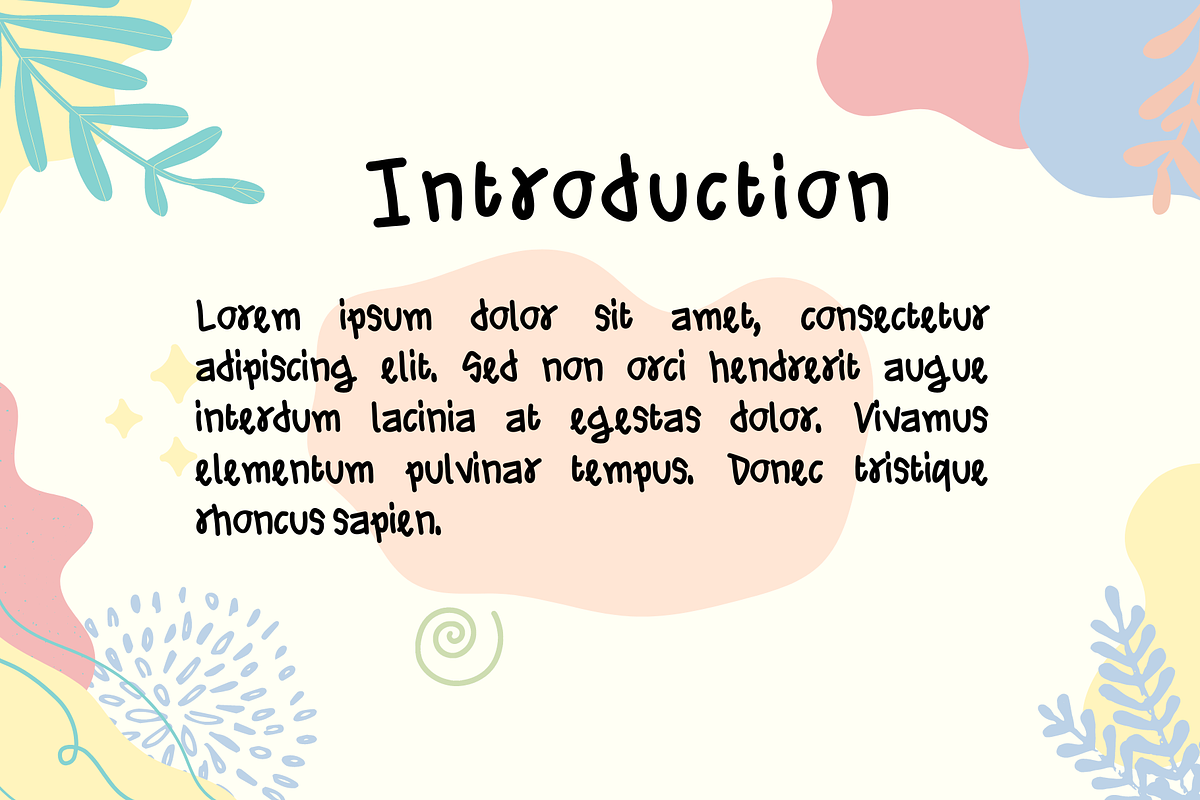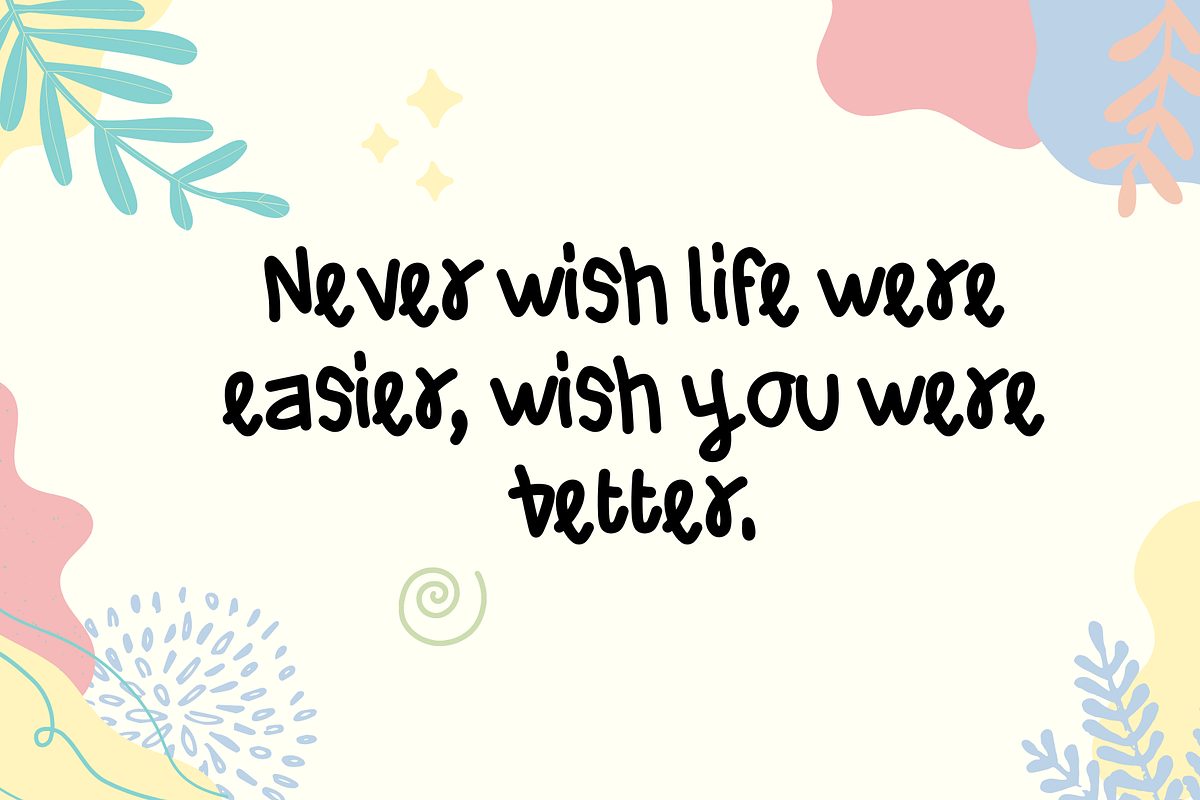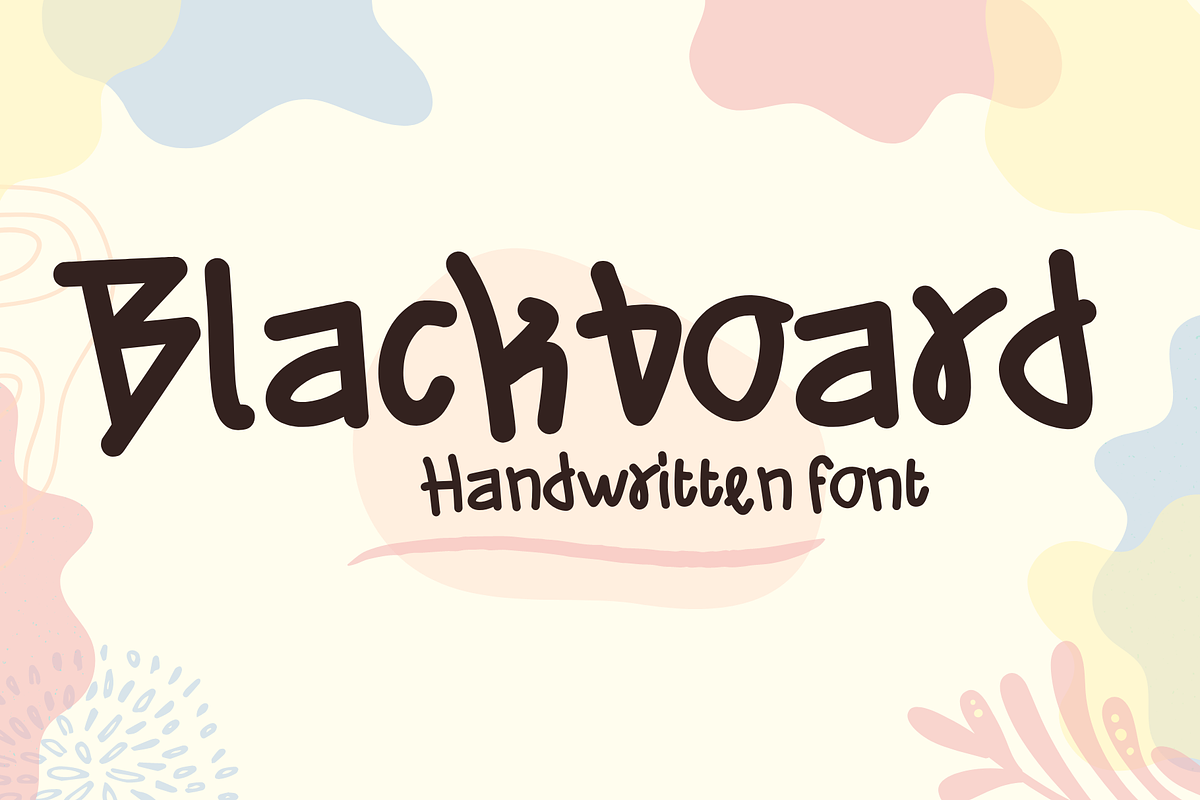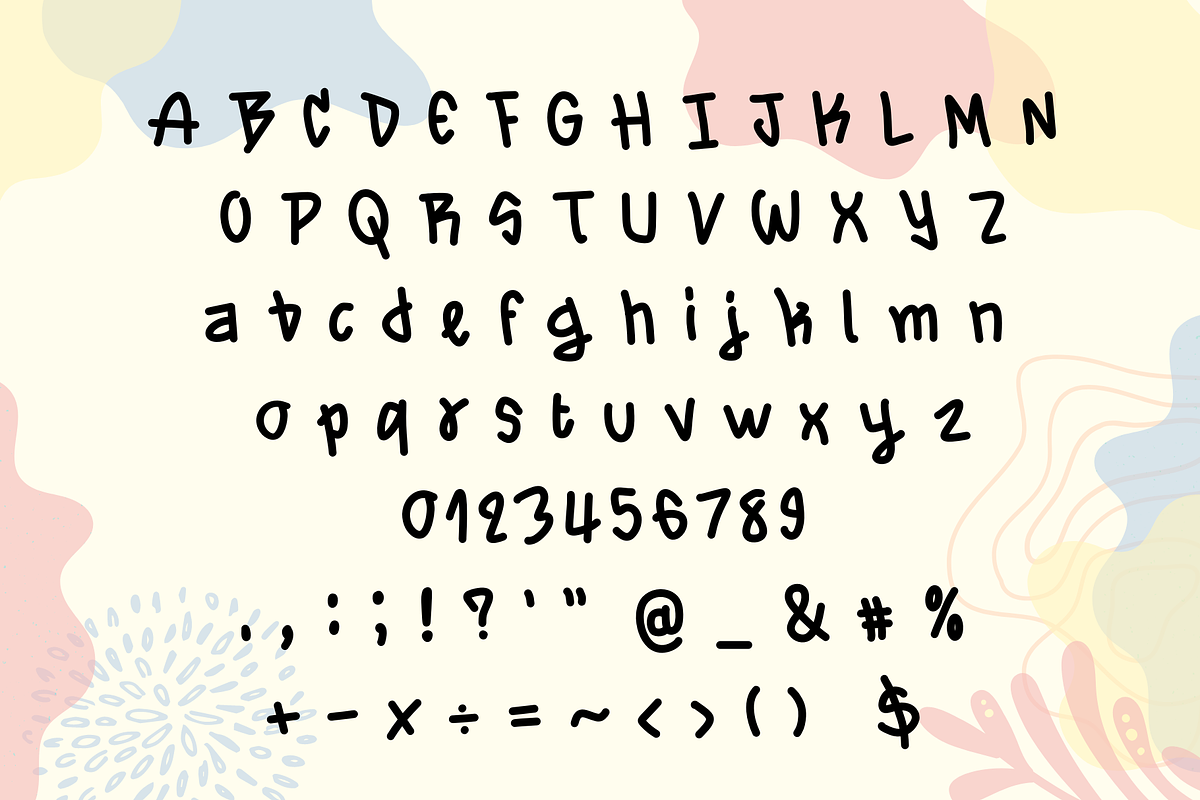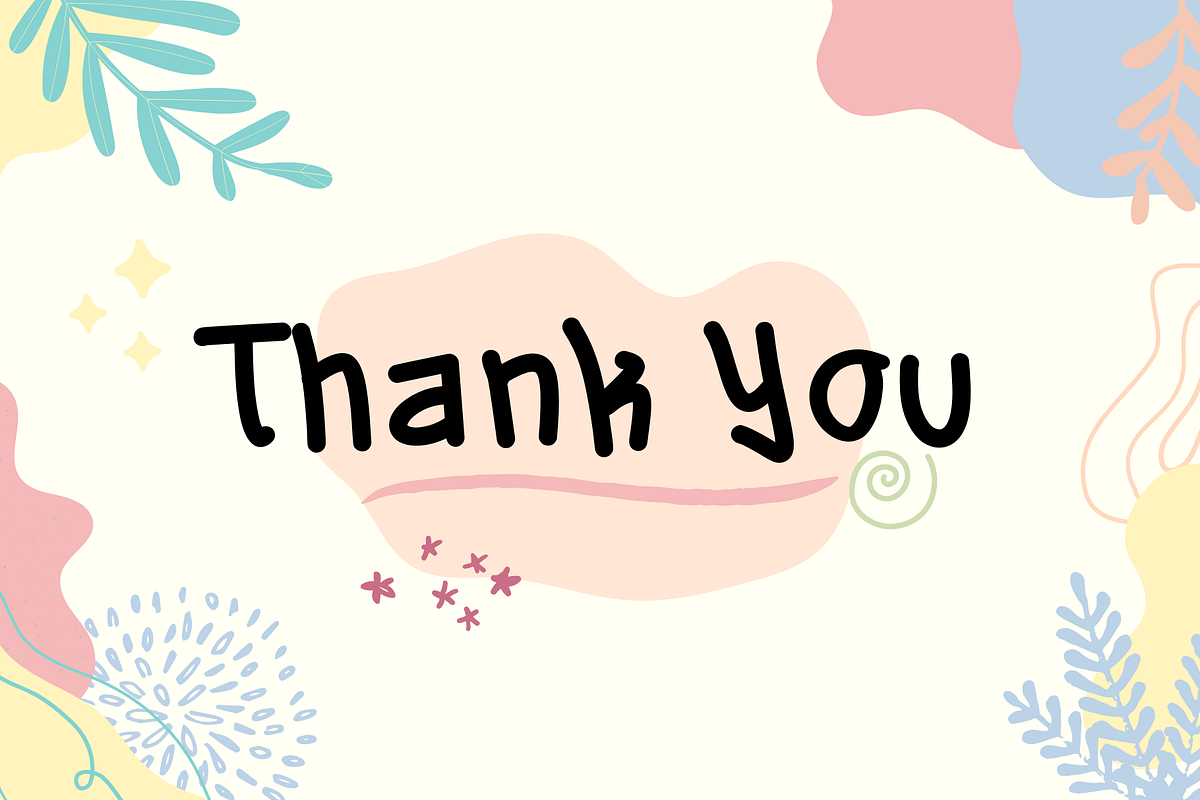
Blackboard
Blackboard is a handwritten font. You can use it for taking notes, writing a diary, or making greeting cards. However, you can still use it for other designs, such as banners, content, mugs, cards, shirts, stationery, social media posts, and more!